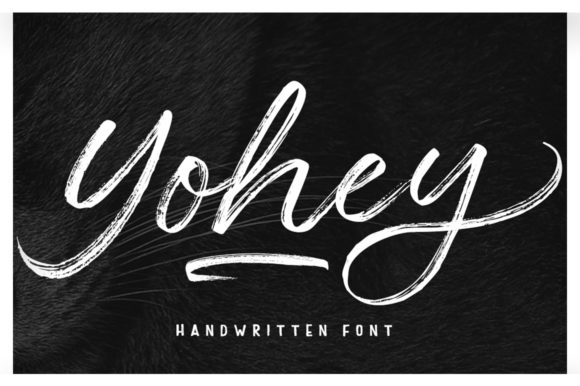
Yohey Font
Prepare to be captivated by the extraordinary Yohey Font, a hand-brushed modern script that dances across your digital canvases with an unparalleled charm. Created by the visionary Franstudio, Yohey is not just a font; it's an experience that awakens your creativity and ignites your imagination. With its playful baseline and a treasure trove of separate swashes, Yohey empowers you to transform ordinary text into mesmerizing works of art.
Indulge in the artistry of Yohey's meticulously crafted lowercase letters, each adorned with exquisite swashes that gracefully adorn their beginnings and endings. Experience the thrill of customizing your designs with endless possibilities, as you effortlessly blend and match these swashes to create unique and captivating compositions. The possibilities are boundless, allowing you to weave a tapestry of visual delight that leaves your audience spellbound.
Yohey's versatility knows no bounds. Whether you're a seasoned designer or just starting your creative journey, this extraordinary font seamlessly adapts to your every need. From captivating logos that demand attention to business cards that exude professionalism, from enchanting wedding invitations that evoke romance to social media posts that radiate vibrancy, Yohey becomes an extension of your creative vision, effortlessly enhancing your designs with a touch of magic.
Embrace the allure of Yohey and unlock a world of creative possibilities. Let your imagination run wild as you explore the endless applications of this remarkable script font. Discover the joy of crafting designs that resonate with your audience, leaving a lasting impression that lingers in their minds long after they've encountered your work. Yohey is more than just a font; it's an invitation to embark on a creative adventure, where your imagination takes center stage and your designs come alive with breathtaking beauty.